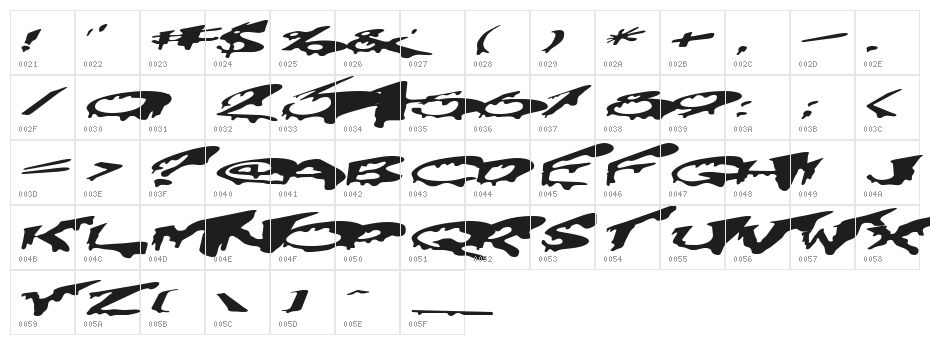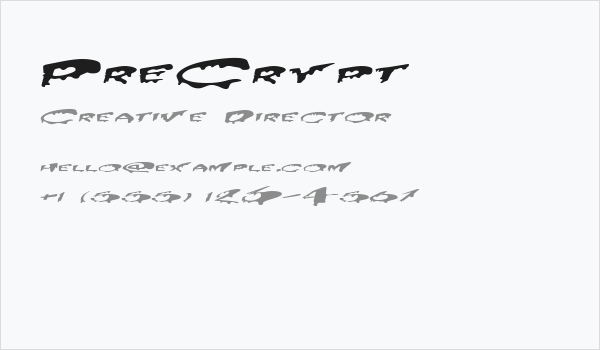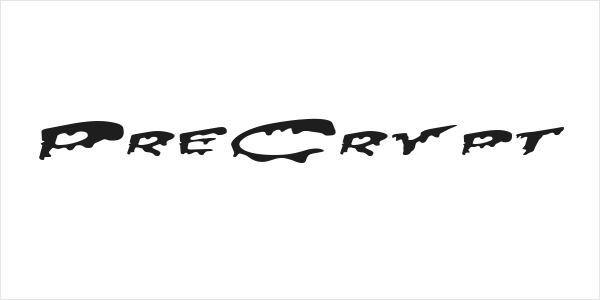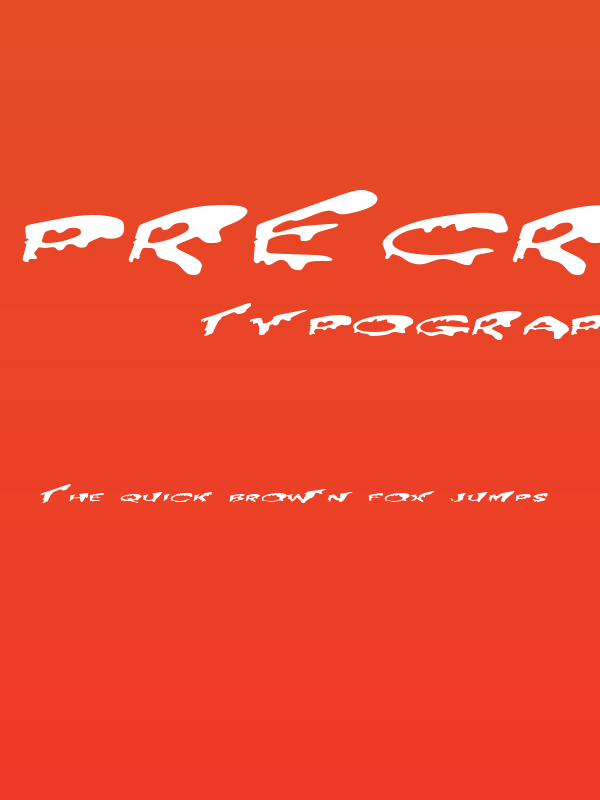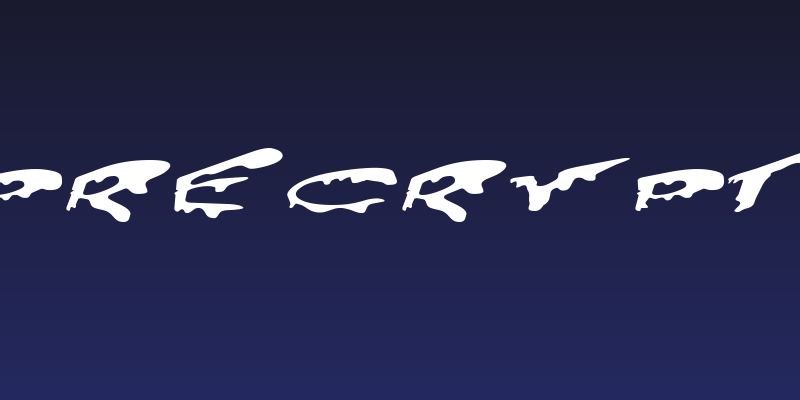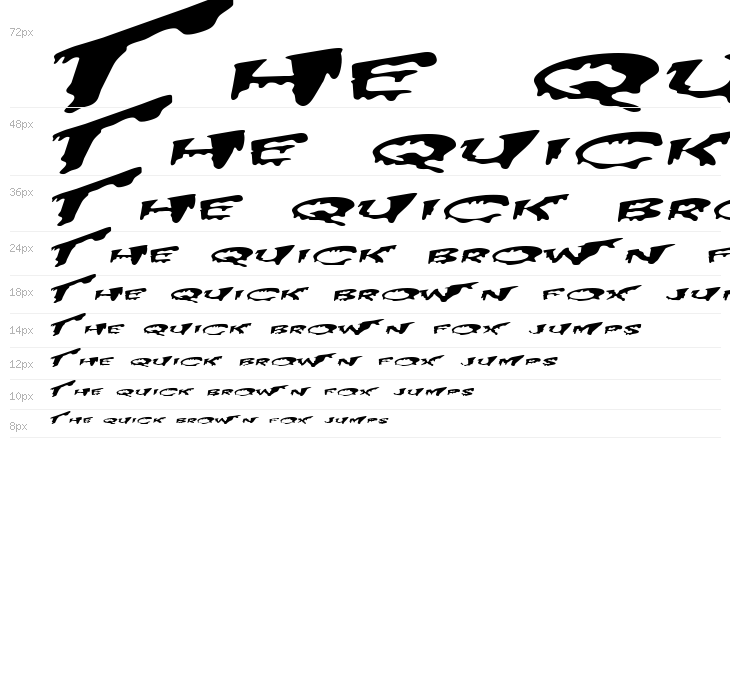
PreCrypt Font
PreCrypt Description
This font features a bold and dynamic style with a distressed, grunge-like appearance. The characters are heavily stylized, with jagged edges and irregular shapes that give them a unique, edgy look. The uppercase and lowercase letters maintain a consistent design, with a sense of movement and energy. Numbers and special characters follow the same aesthetic, ensuring a cohesive appearance across all glyphs. The font's distinctiveness makes it stand out, ideal for projects that require a strong visual impact.
| Overall Style | Edgy, Grunge |
| Proposed Projects | Ideal for music album covers, horror movie posters, edgy branding, and streetwear designs. |